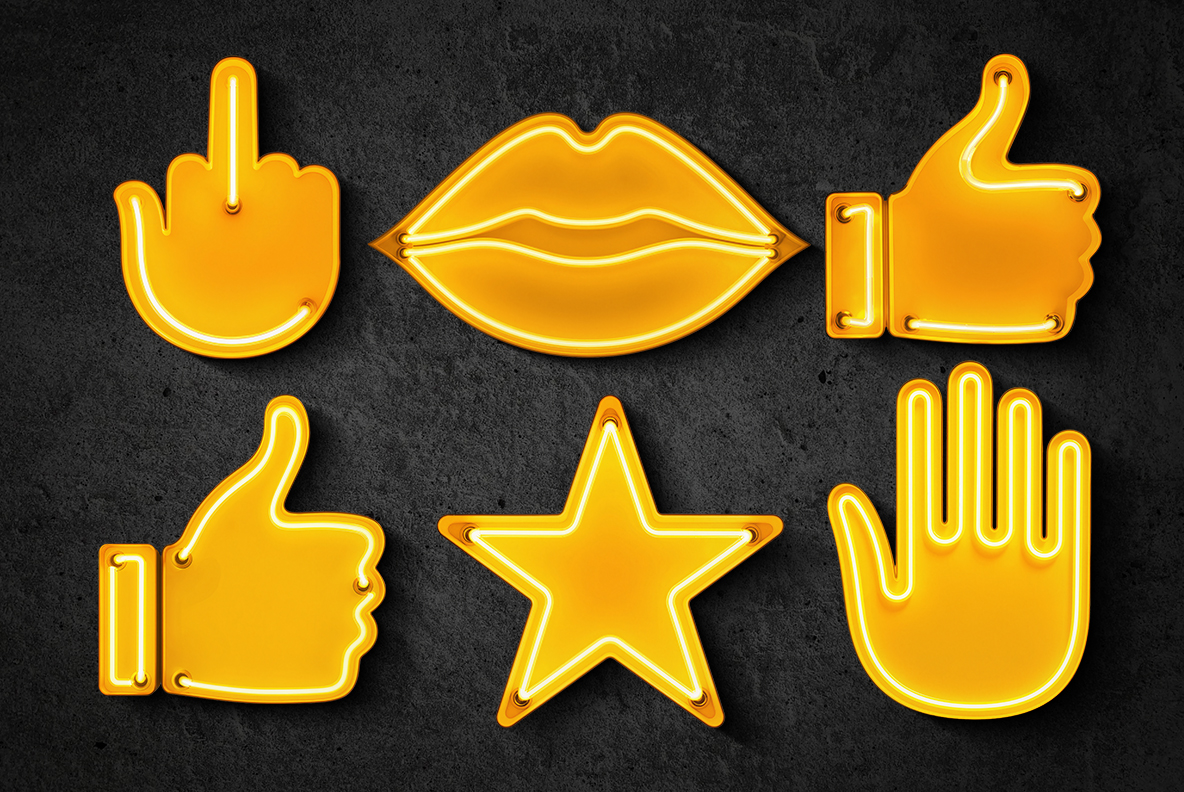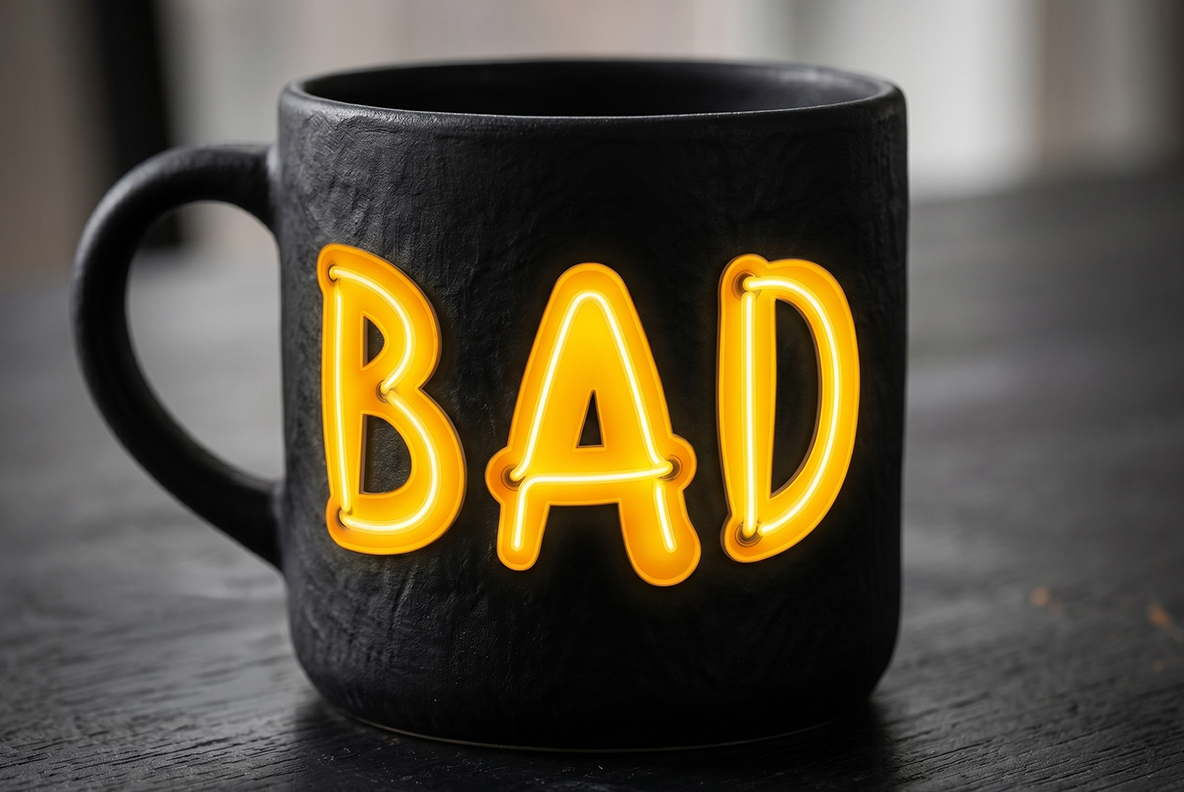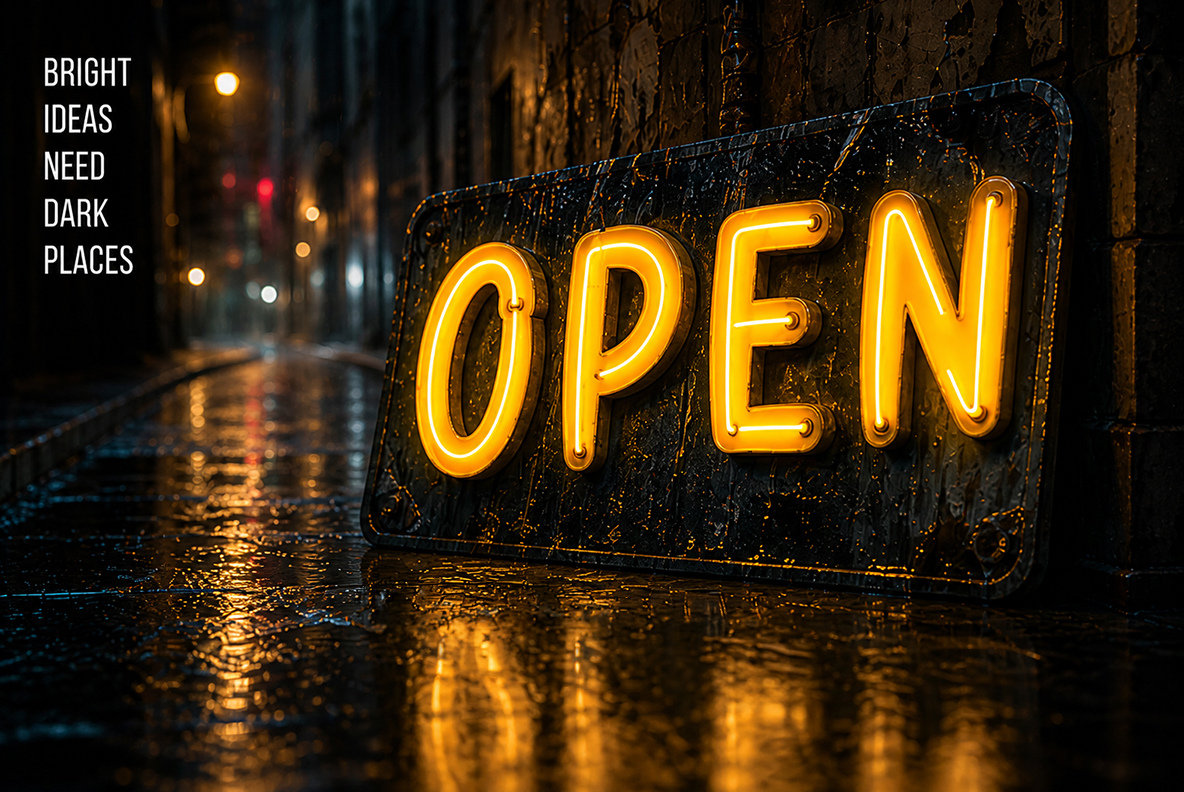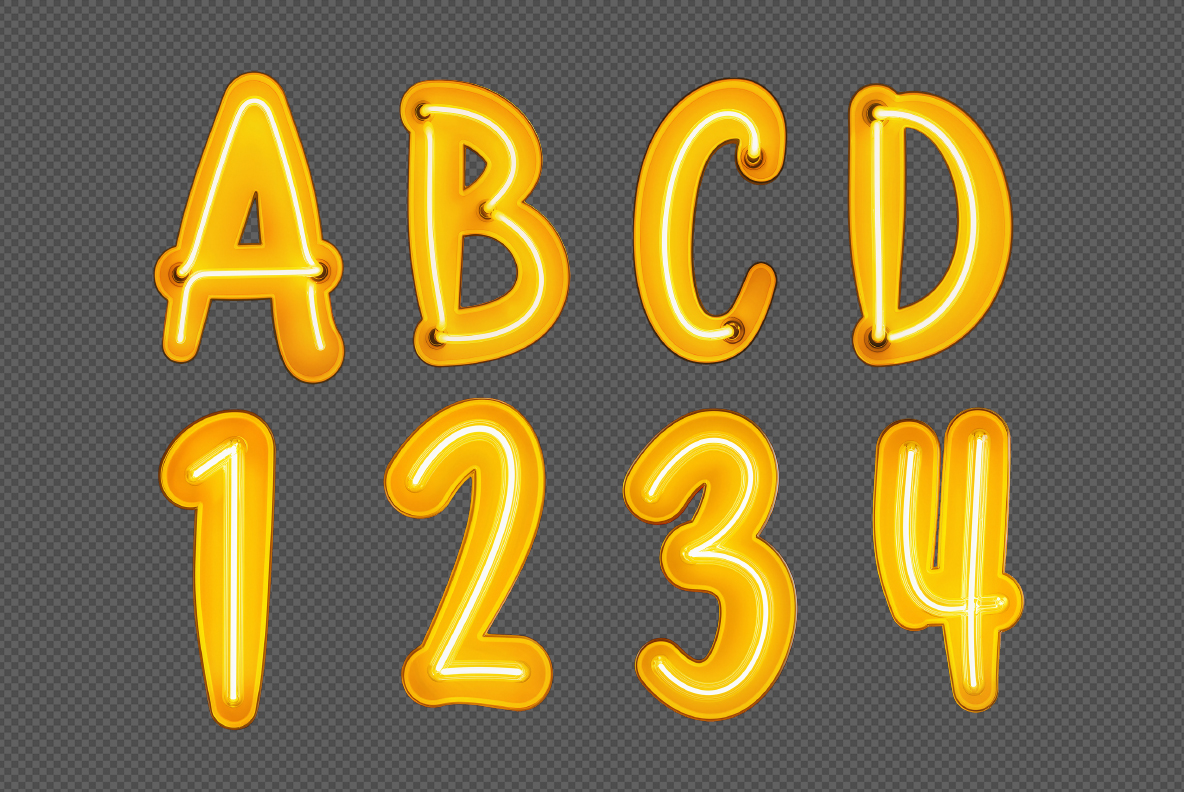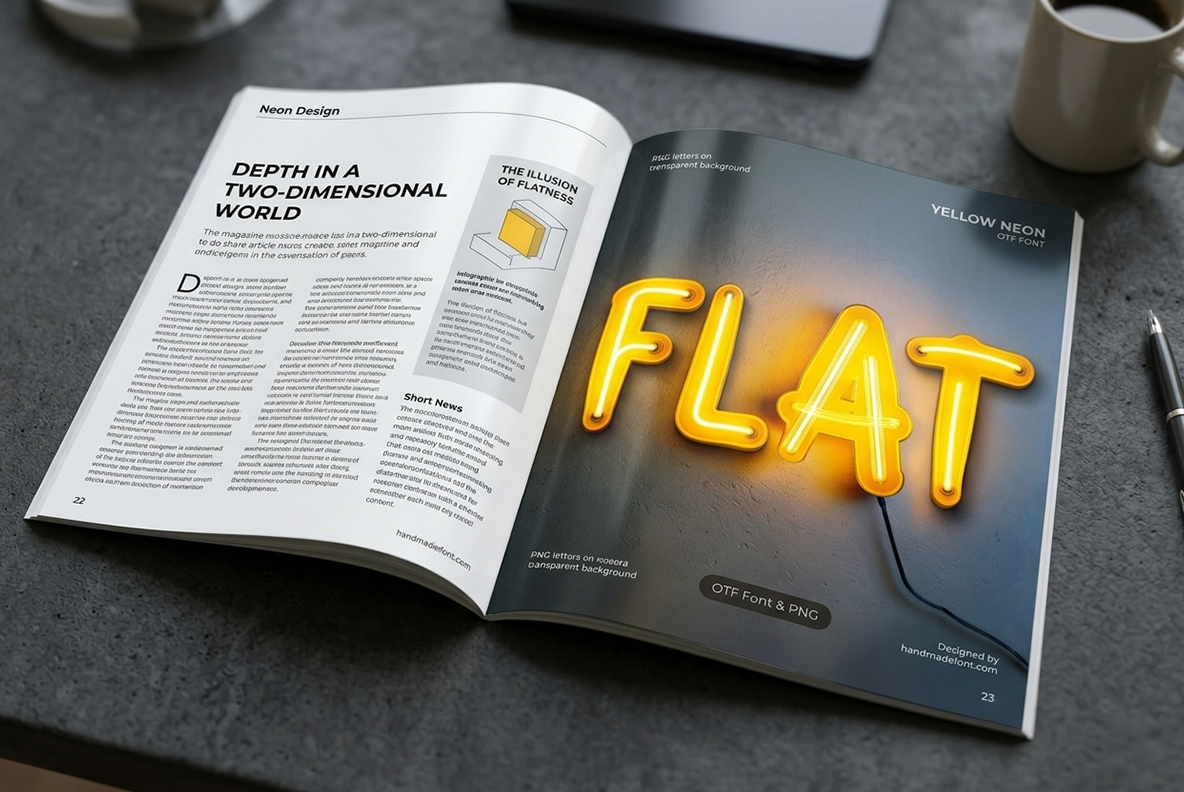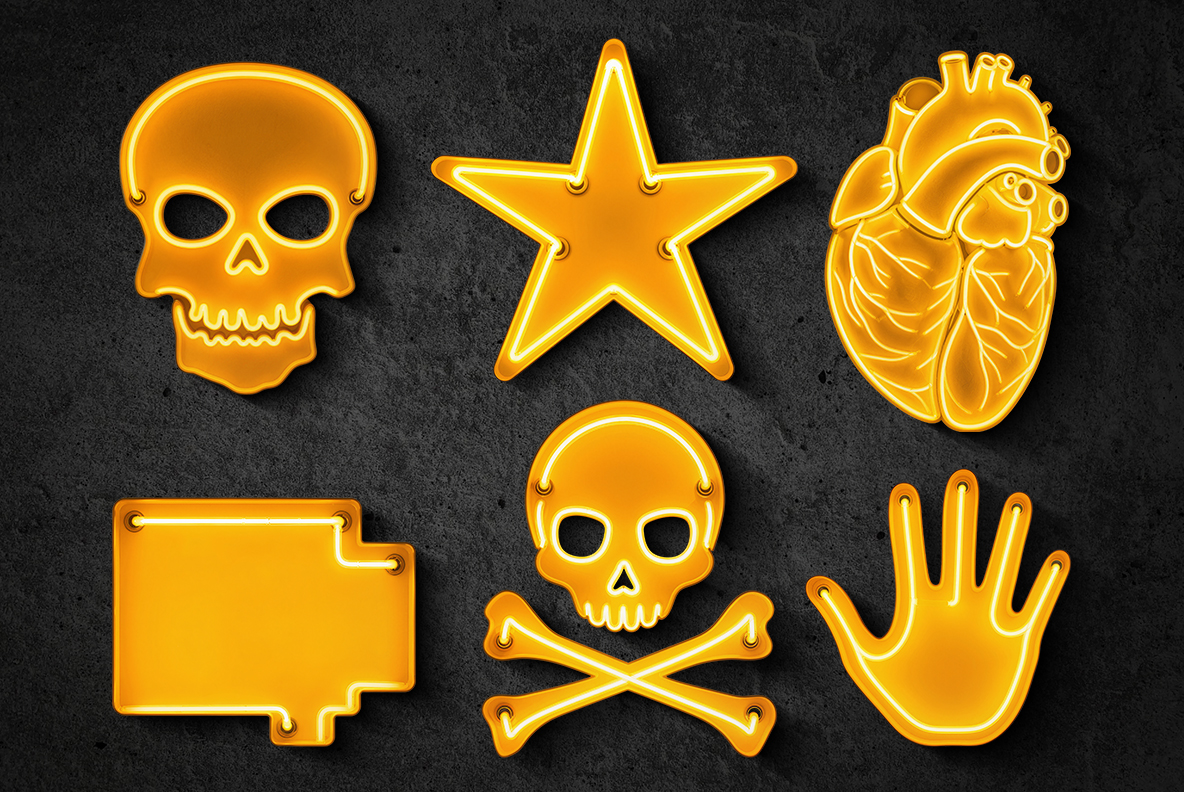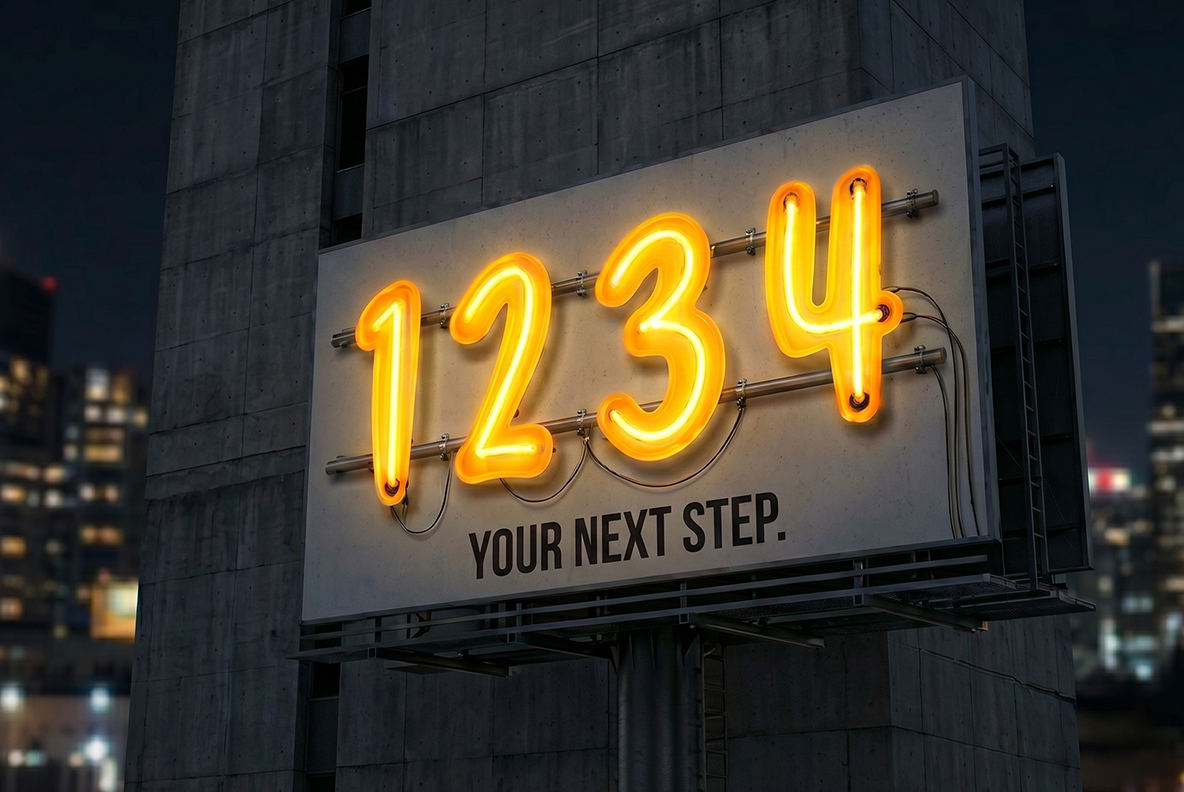
Yellow Neon Font – Where Every Letter Glows
Yellow Neon Font is a vibrant, glowing typeface that transforms every word into a bold visual statement. Inspired by classic neon signage, it radiates warmth, energy, and modern style. Perfect for posters, branding, social media, and eye-catching headlines, it brings light and personality to any design. Each letter feels alive, as if powered by electricity, creating a striking atmosphere that instantly grabs attention and keeps your message shining bright.
Glow Mode: Activated
Yellow Neon Font doesn’t whisper—it hums, buzzes, and occasionally winks at you from across the room. Inspired by classic neon signage but upgraded for the digital nightlife, this typeface turns ordinary words into glowing performers. Each letter feels like it’s plugged into a secret power source, radiating warmth and confidence. Use it once, and suddenly everything else looks… underdressed.
Yellow Neon Alphabet
A Typeface with Main Character Energy
Let’s be honest: some fonts politely sit in the background. Yellow Neon Font? It books the stage, adjusts the lighting, and steals the spotlight. With its soft curves, bright highlights, and juicy glow, it adds instant drama and personality to any design. Whether you’re crafting a bold headline, a playful poster, or a “look at me” social post, this font doesn’t just show up—it shows off.
Double Power: OTF + PNG Magic
Yellow Neon Alphabet
Plug, Play, and Glow Everywhere
From branding and advertising to posters, packaging, and digital content, Yellow Neon Font adapts like a pro. Need something bold for a nightclub flyer? Done. A quirky headline for your next campaign? Easy. A glowing statement that screams “I have excellent taste”? Obviously. It works beautifully across platforms, always bringing that signature neon charm—no electrician required.
Yellow Neon Alphabet
Warning: May Cause Design Envy
Side effects of using Yellow Neon Font may include excessive compliments, curious stares, and other designers asking, “Wait, what font is that?” It’s bright, it’s playful, and it refuses to be ignored. So go ahead—turn up the glow, embrace the shine, and let your words light up the room. Because boring text is so last season.